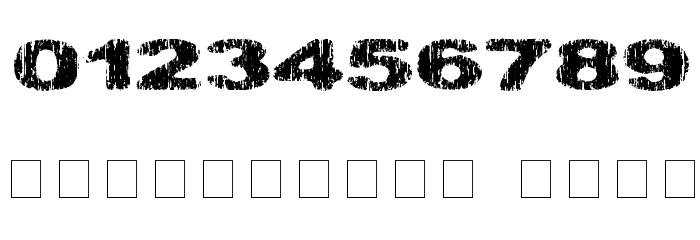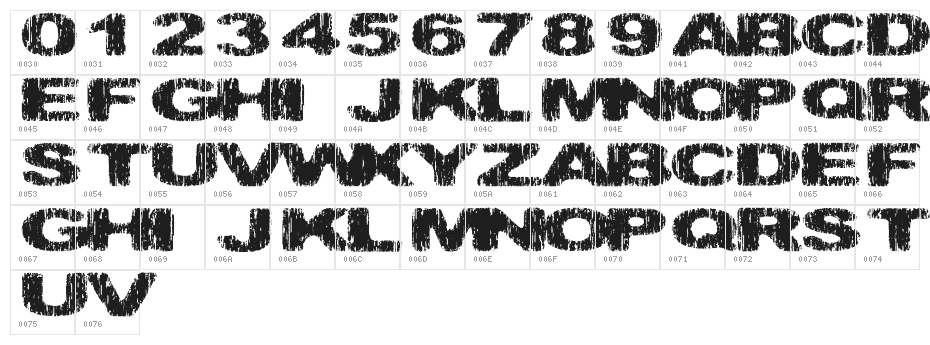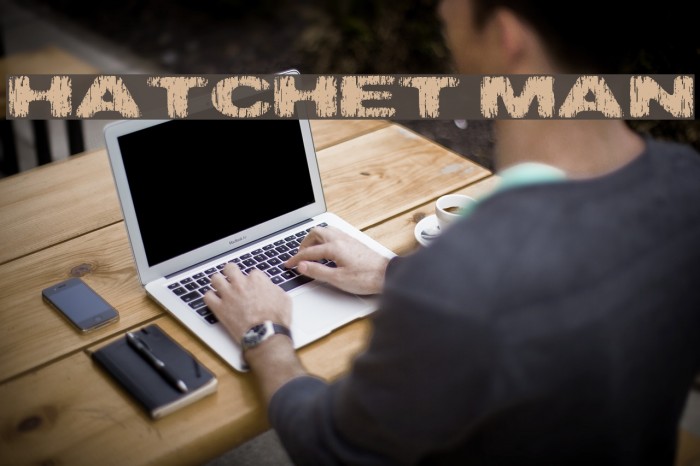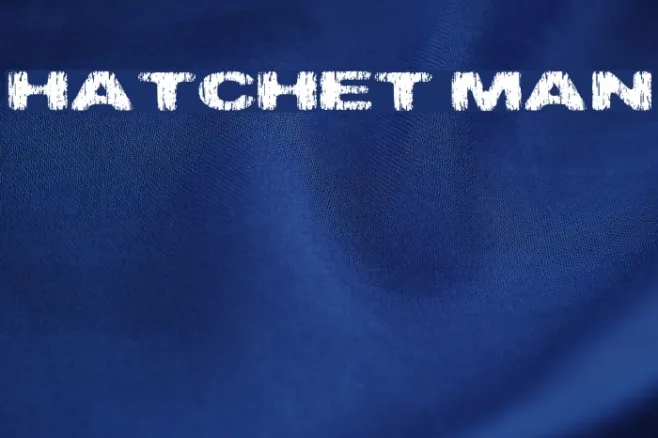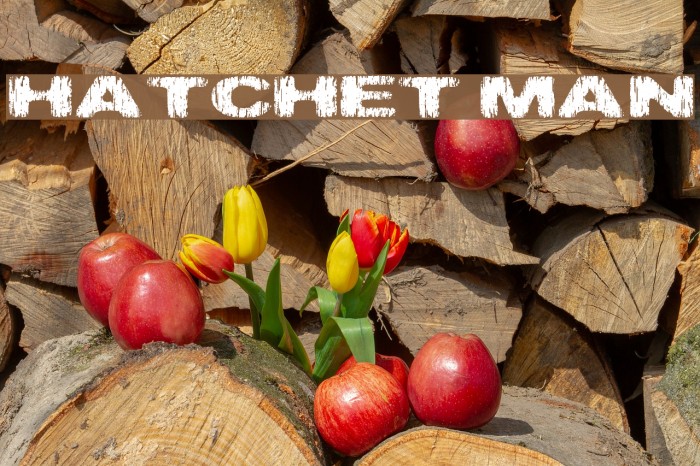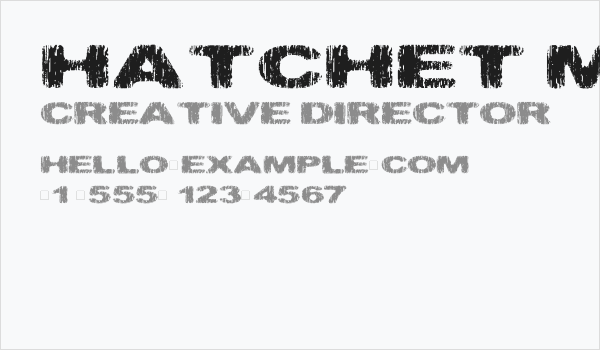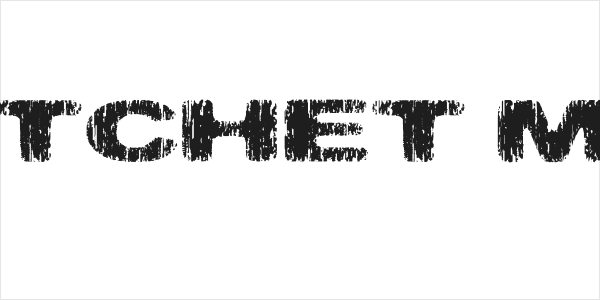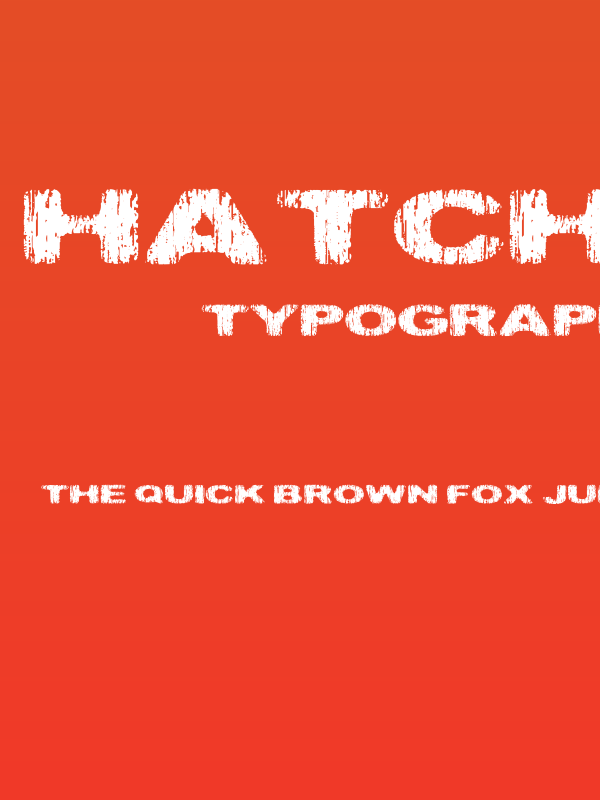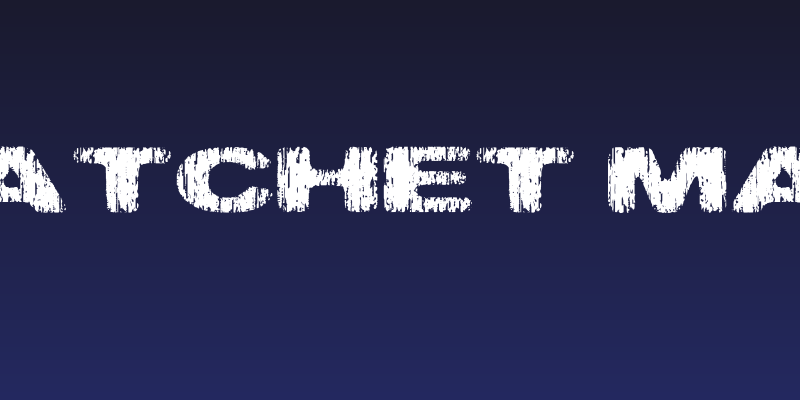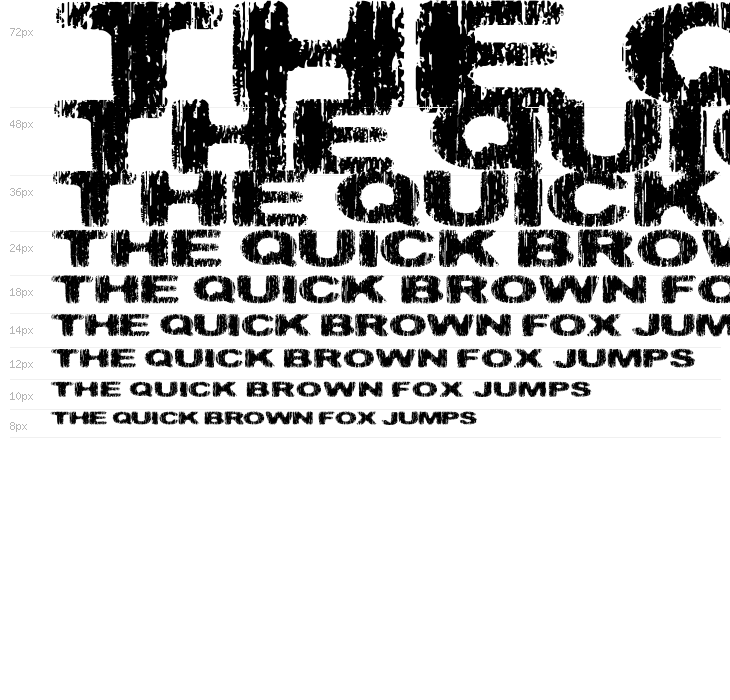
Hatchet Man Font
Hatchet Man Description
This font features a rugged, distressed appearance, reminiscent of rough textures or worn surfaces. The characters are bold and impactful, with a unique, irregular pattern that gives them a dynamic and edgy look. The uppercase and lowercase letters maintain a consistent style, with each character appearing as if it has been carved or etched, adding to the overall gritty aesthetic. The numbers and special characters follow the same design, ensuring uniformity across all glyphs. This font is ideal for projects that require a strong, attention-grabbing typeface with a raw, industrial feel.
| Proposed Projects | Ideal for posters, album covers, branding for edgy or industrial-themed products, and any design needing a bold statement. |